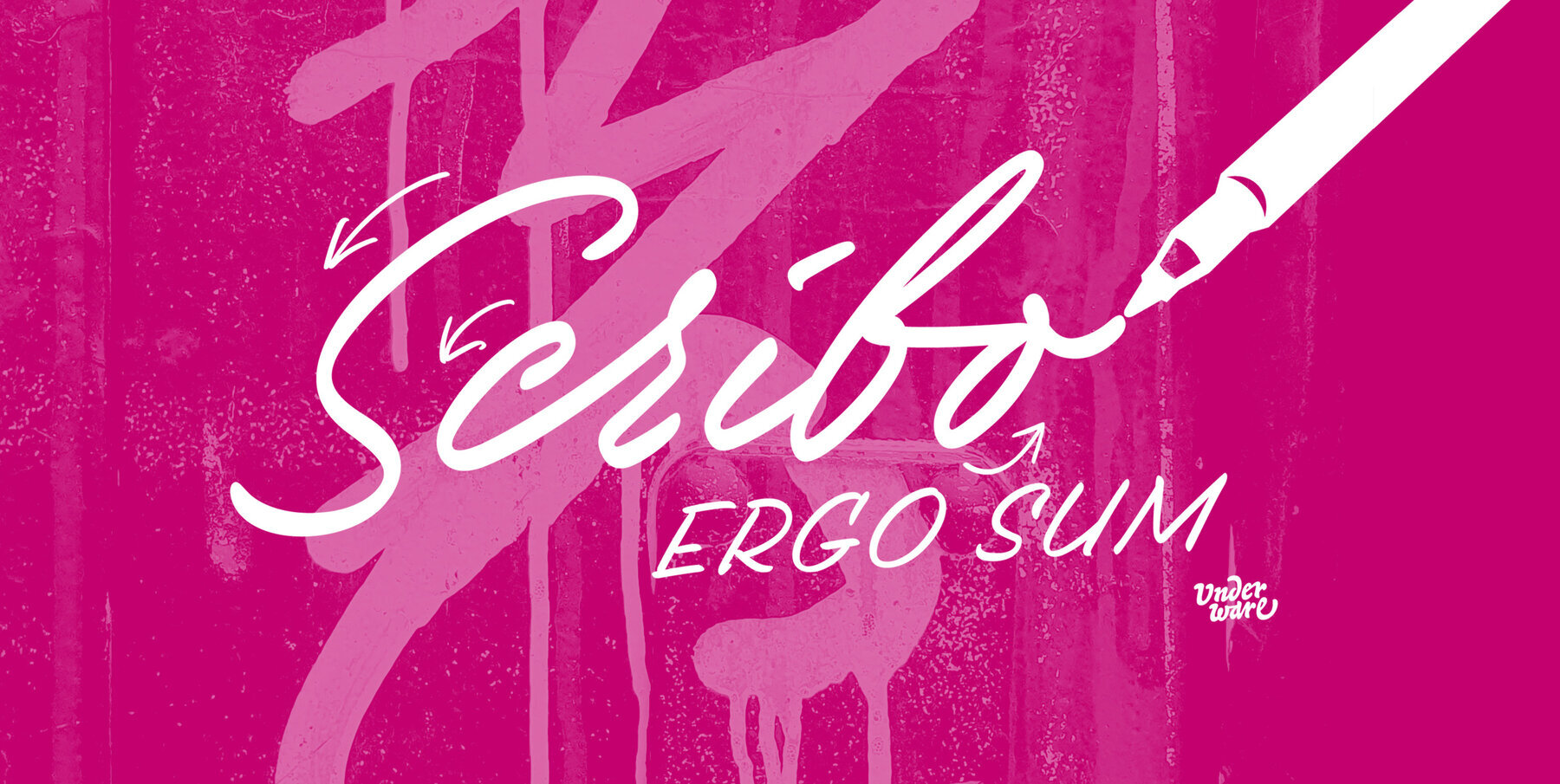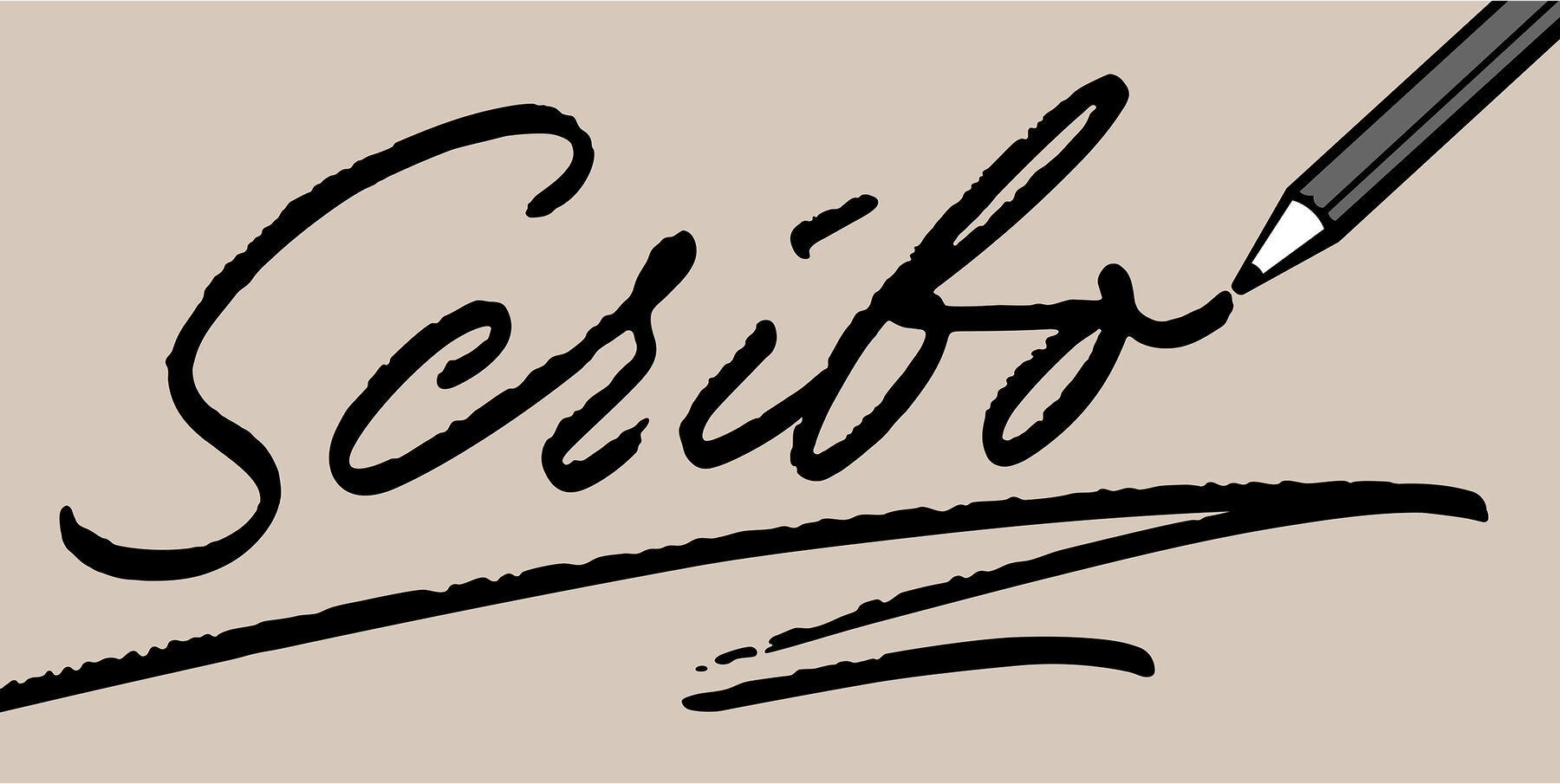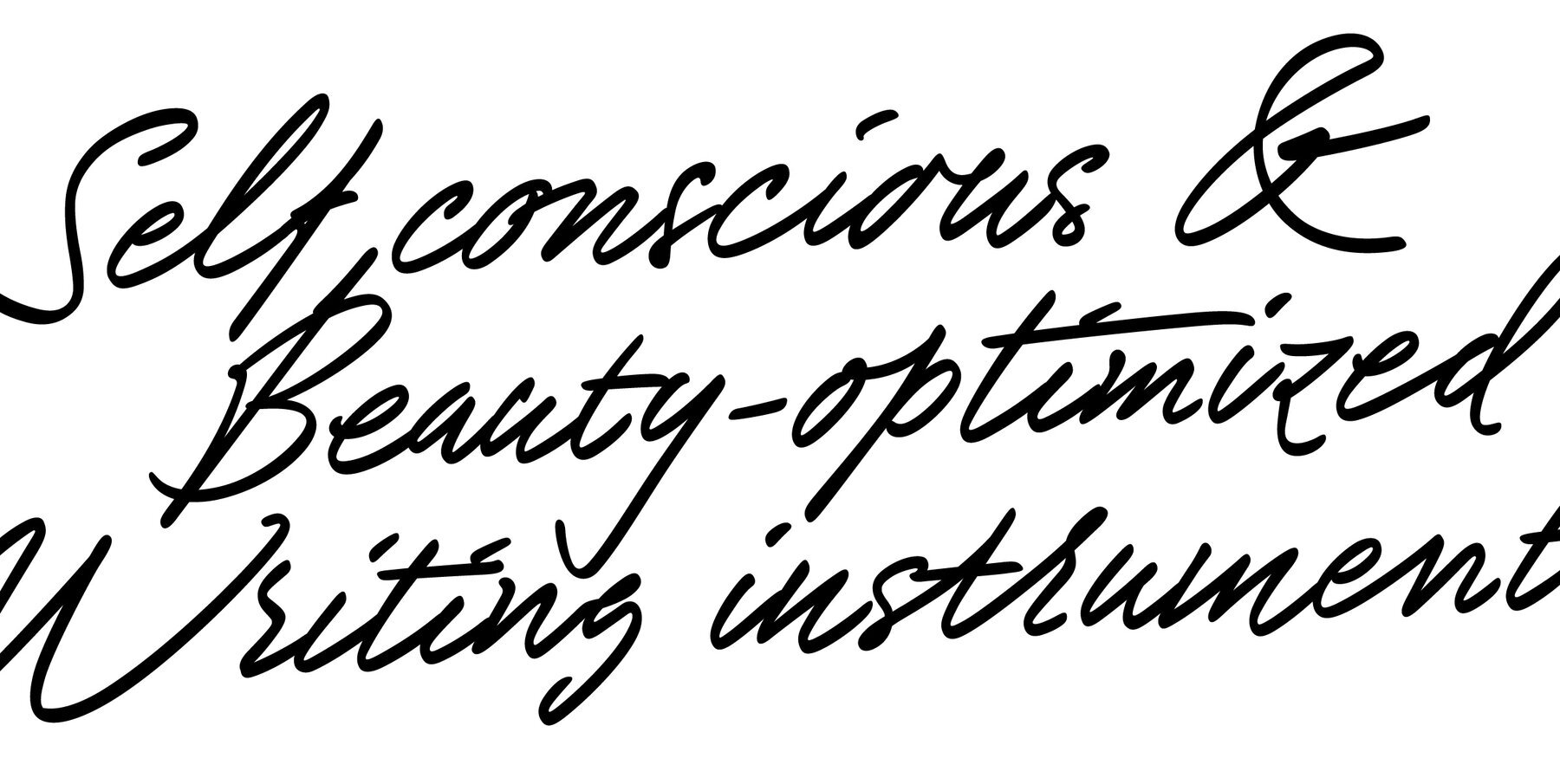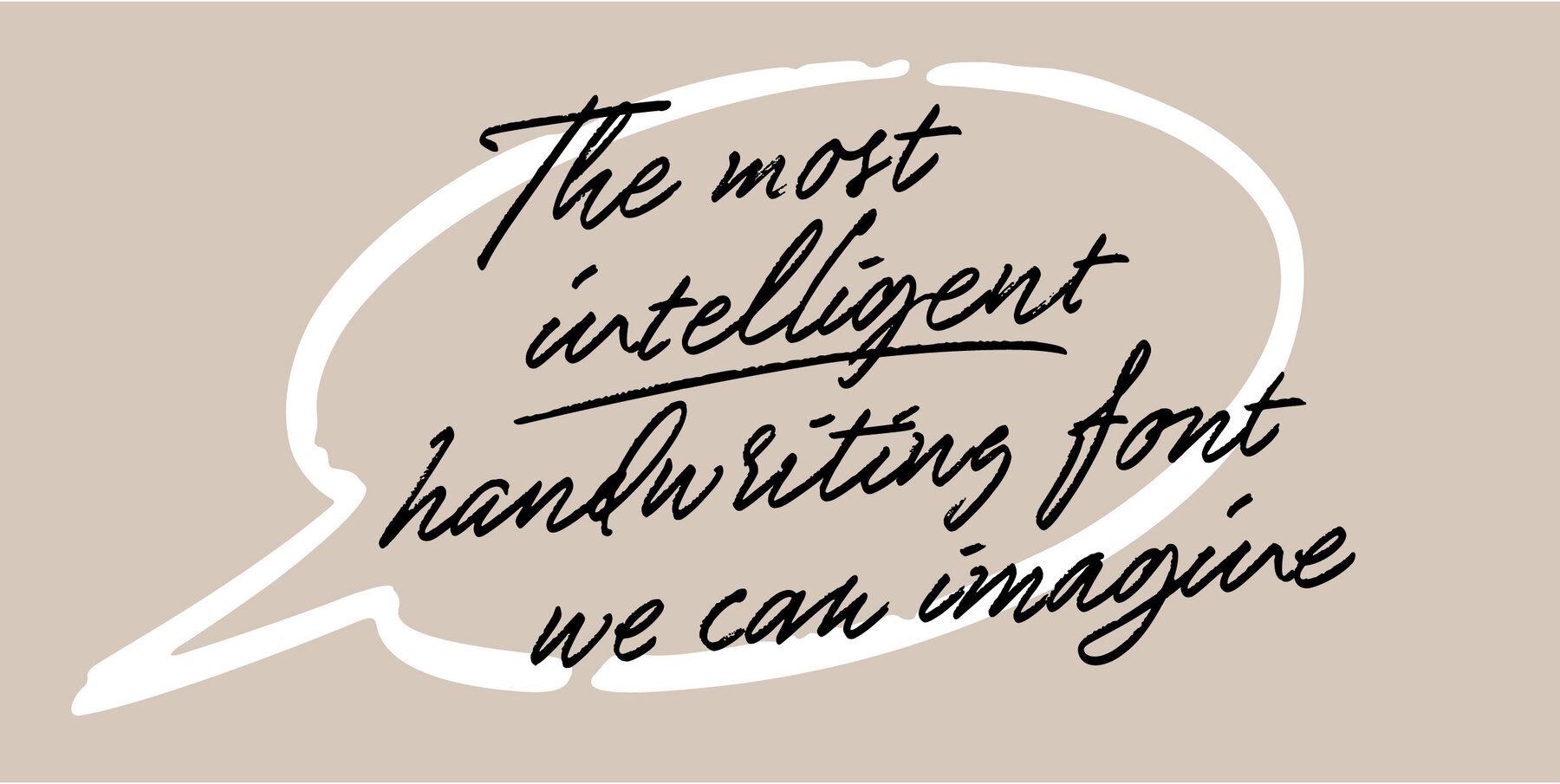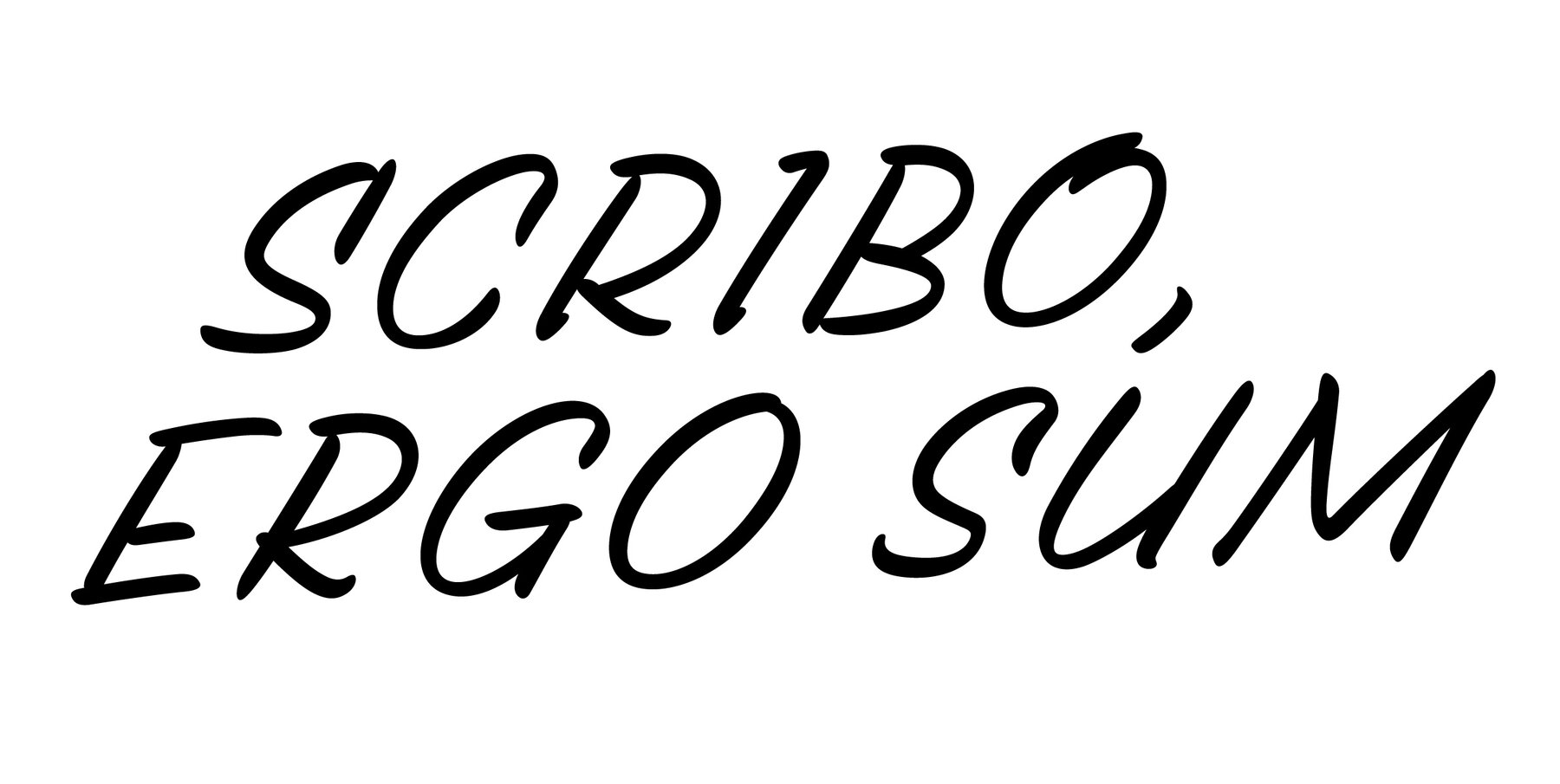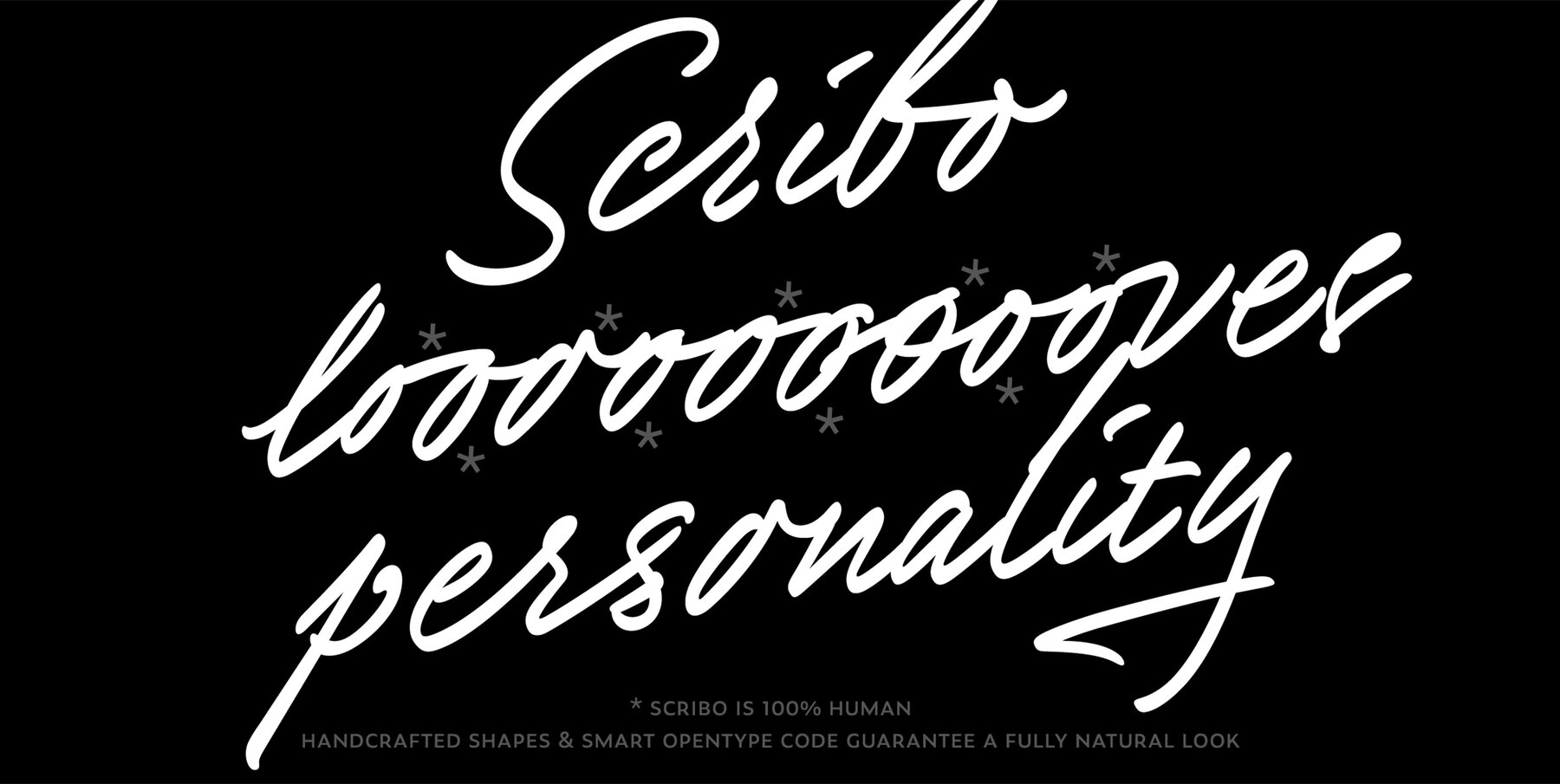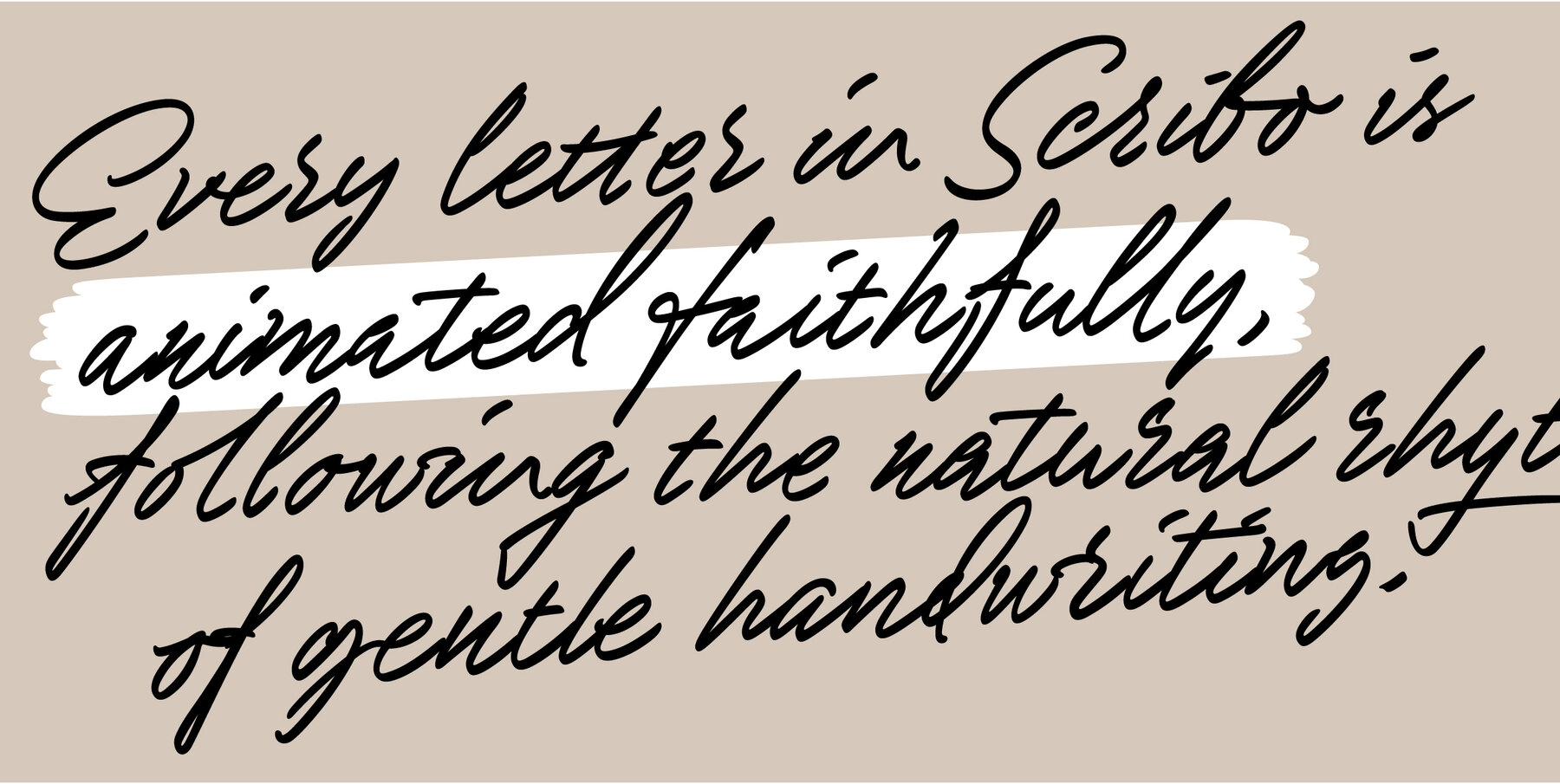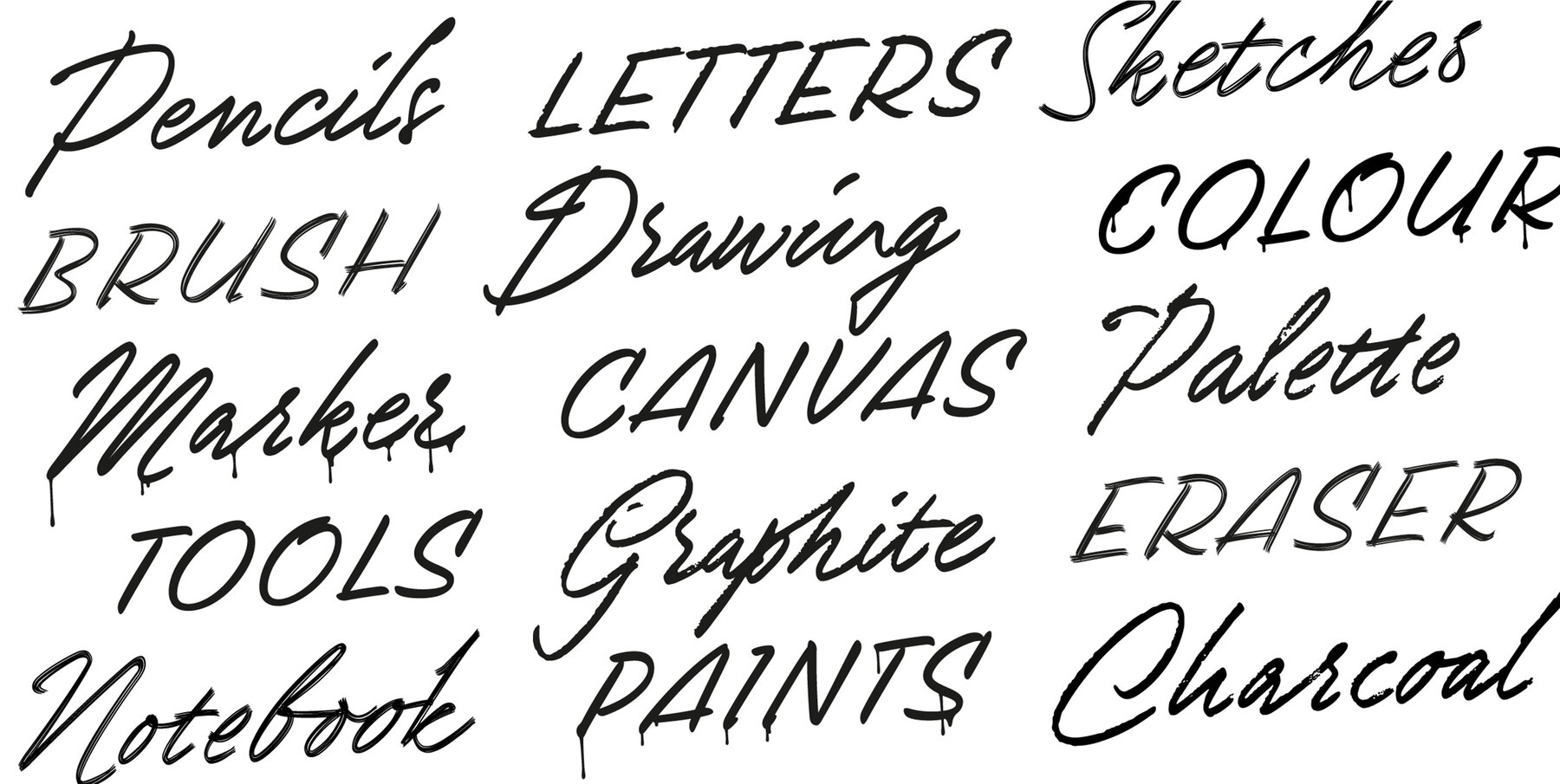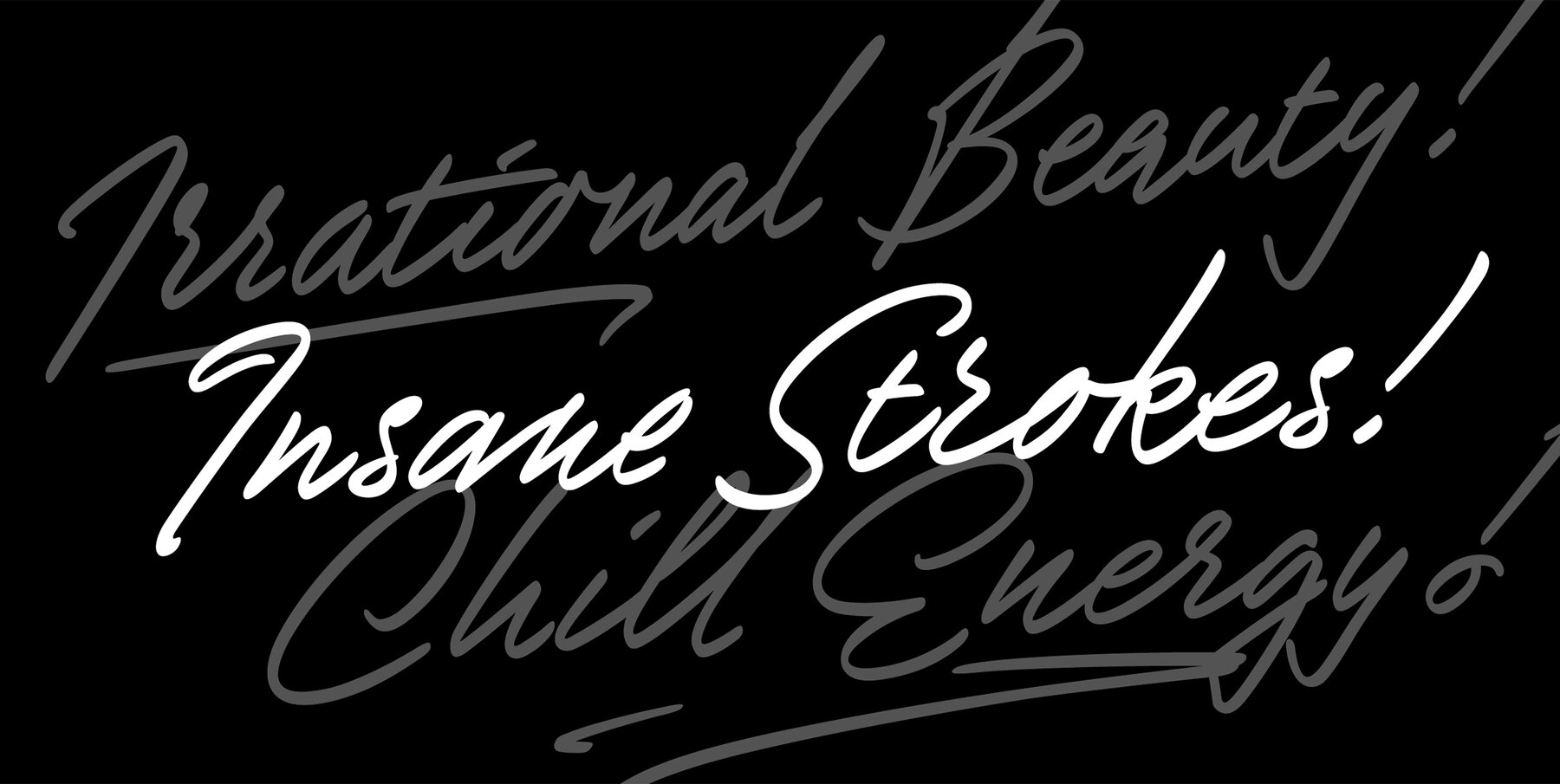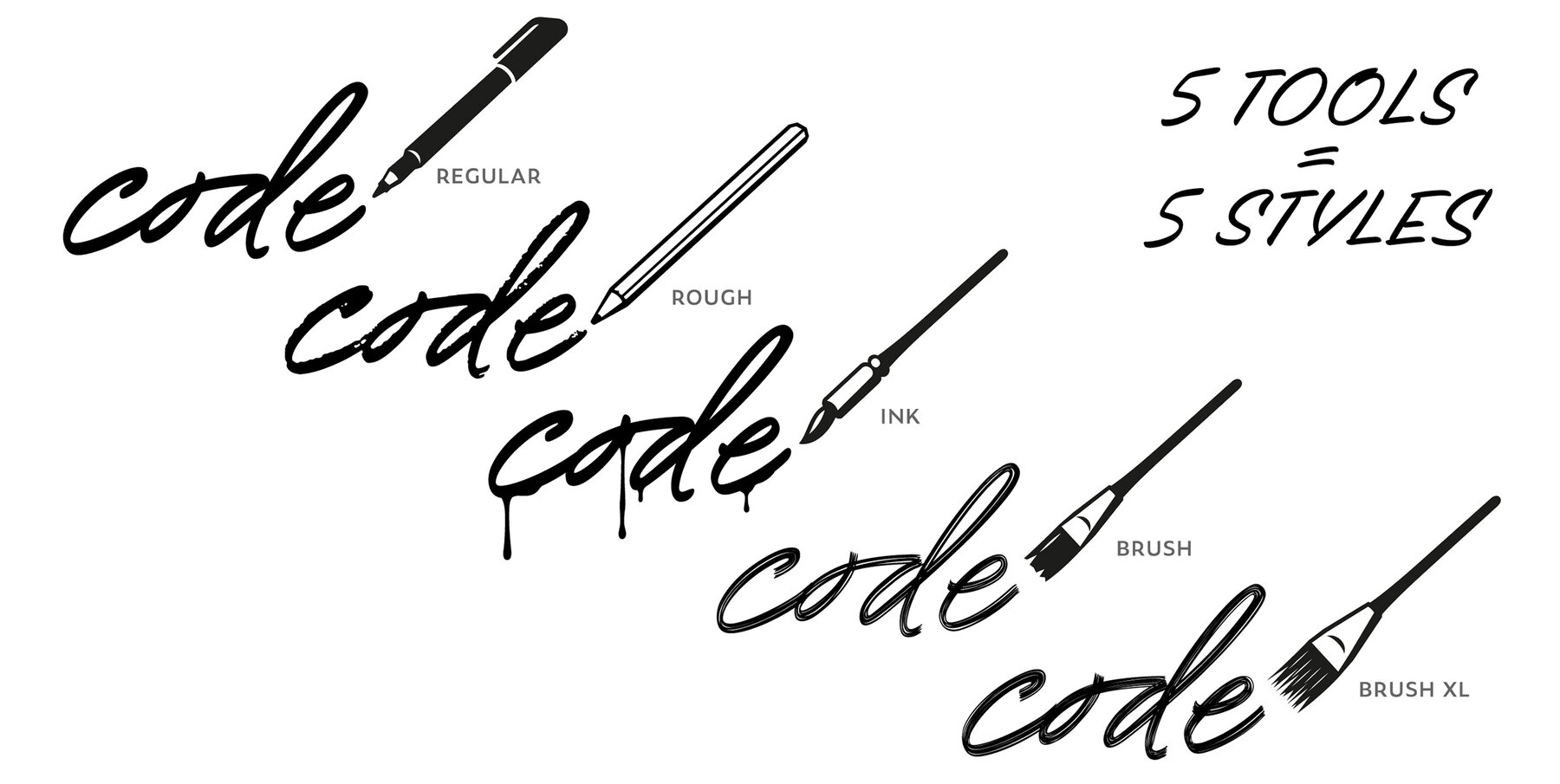
Scribo Pro Font
The dream of creating a writing machine has been a longstanding aspiration in the journey of human innovation, representing a desire to transcend the limitations of manual writing and communication. This dream has evolved through various historical phases, which now culminate in Scribo: Scribo comes with a dynamic version where every letter animates naturally with flowing ink and unlimited frame frate - ask to obtain this exclusive, delicate dynamic version from Underware ( directly, and try it at Scribomat (. Scribo is the most intelligent handwriting font we can imagine: it captures the action of writing, in which the shape of every letter depends on its context. This is a natural process in handwriting that every writer performs subconsciously, but requires extensive analysis to translate into a digital font. Scribo’s main handwriting style is supported by a Caps font, in case you need to set a word entirely in capitals. Additionally, Scribo comes with an Ornament font for the extra manual touch and individual soul by offering lots of arrows, strokes, scribbles and dingbats. These three styles (Regular, Caps, Ornaments) have been created with five different tools: the default, smooth style is written with a marker; the Rough style, which has worn edges, is written with a pencil; the Ink style has dripping ink all over. Brush style has been made with a flat brush, obviously, just like Brush XL is meant to be used in very large sizes. See, this brush script comes with optical sizes! Fifteen fonts all together to write because you are. Scribo comes with Underware’s Latin Plus character set with a support for 219 languages.